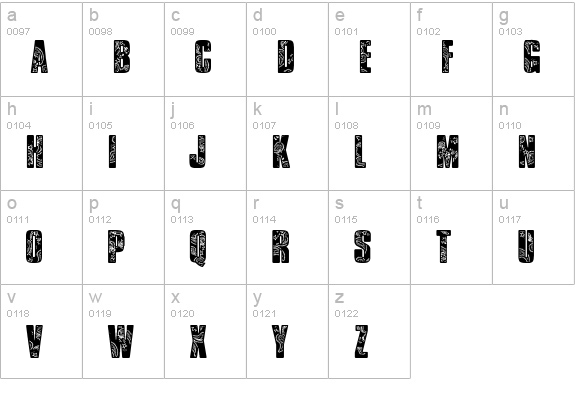
VTKS Bandana Font Details
VTKS Bandana font is a unique and eye-catching typeface that exudes creativity and flair. Its playful and hand-drawn style makes it perfect for adding a fun and energetic touch to your designs. The uneven lines and slightly irregular shapes give this font a charming and organic feel that sets it apart from more traditional typefaces. What's even better is that VTKS Bandana font is completely free to download! You can get your hands on this fantastic font at FontsMarket.com, where you can easily access and use it for any personal or commercial project. Whether you're designing posters, invitations, logos, or any other creative project, VTKS Bandana font will bring a fresh and dynamic element to your work. Don't miss out on this fantastic opportunity to add a touch of whimsy and character to your designs with VTKS Bandana font. Download it today and let your creativity shine!